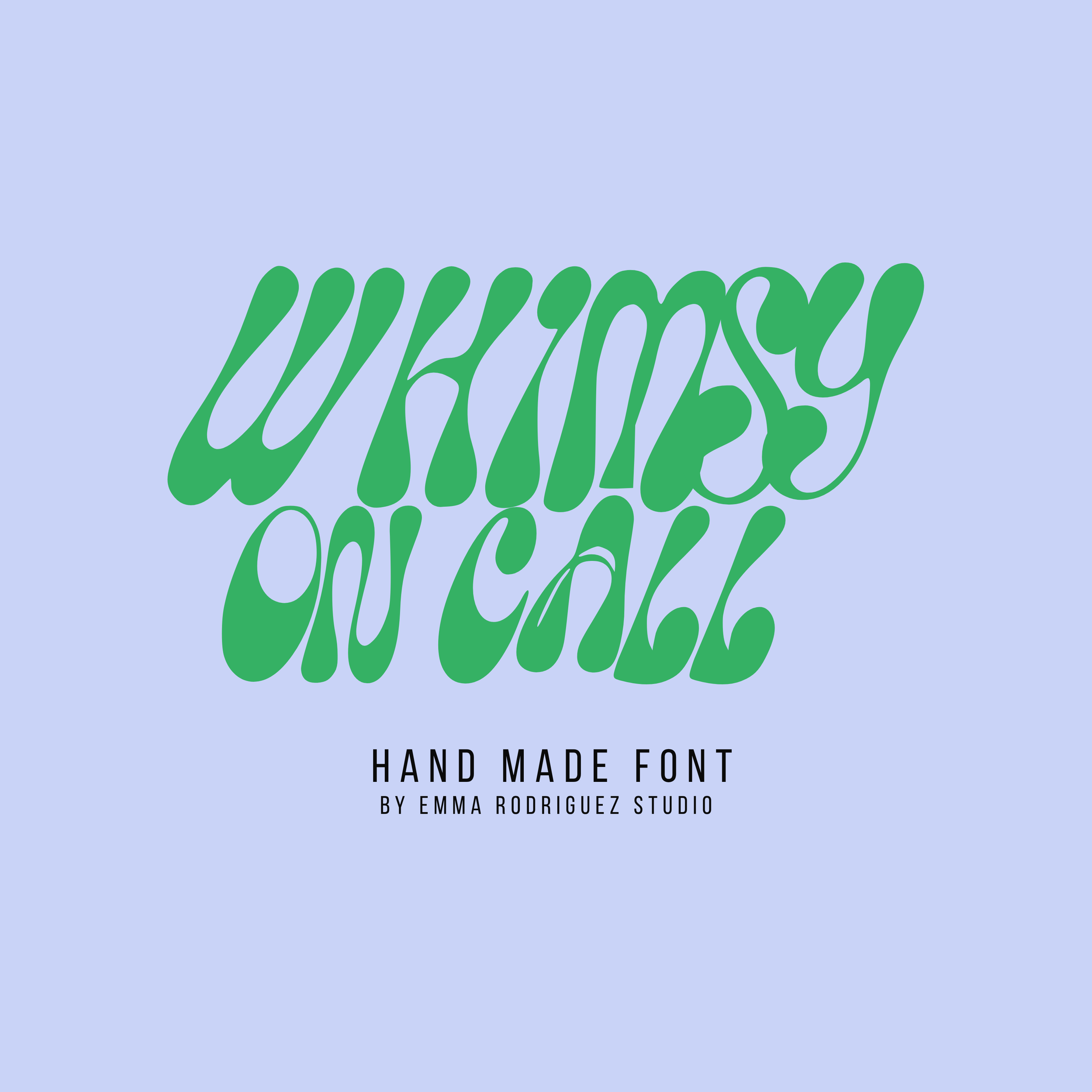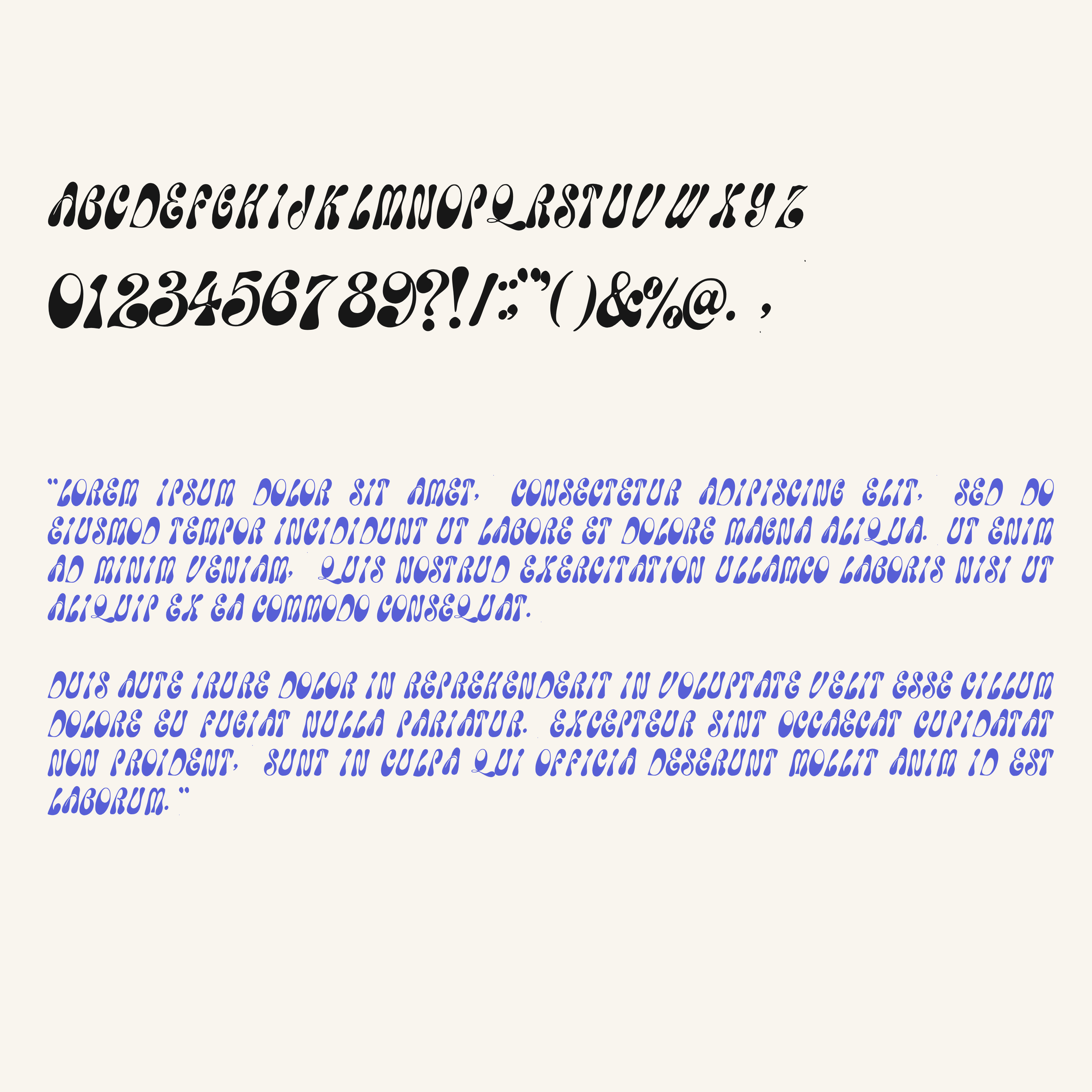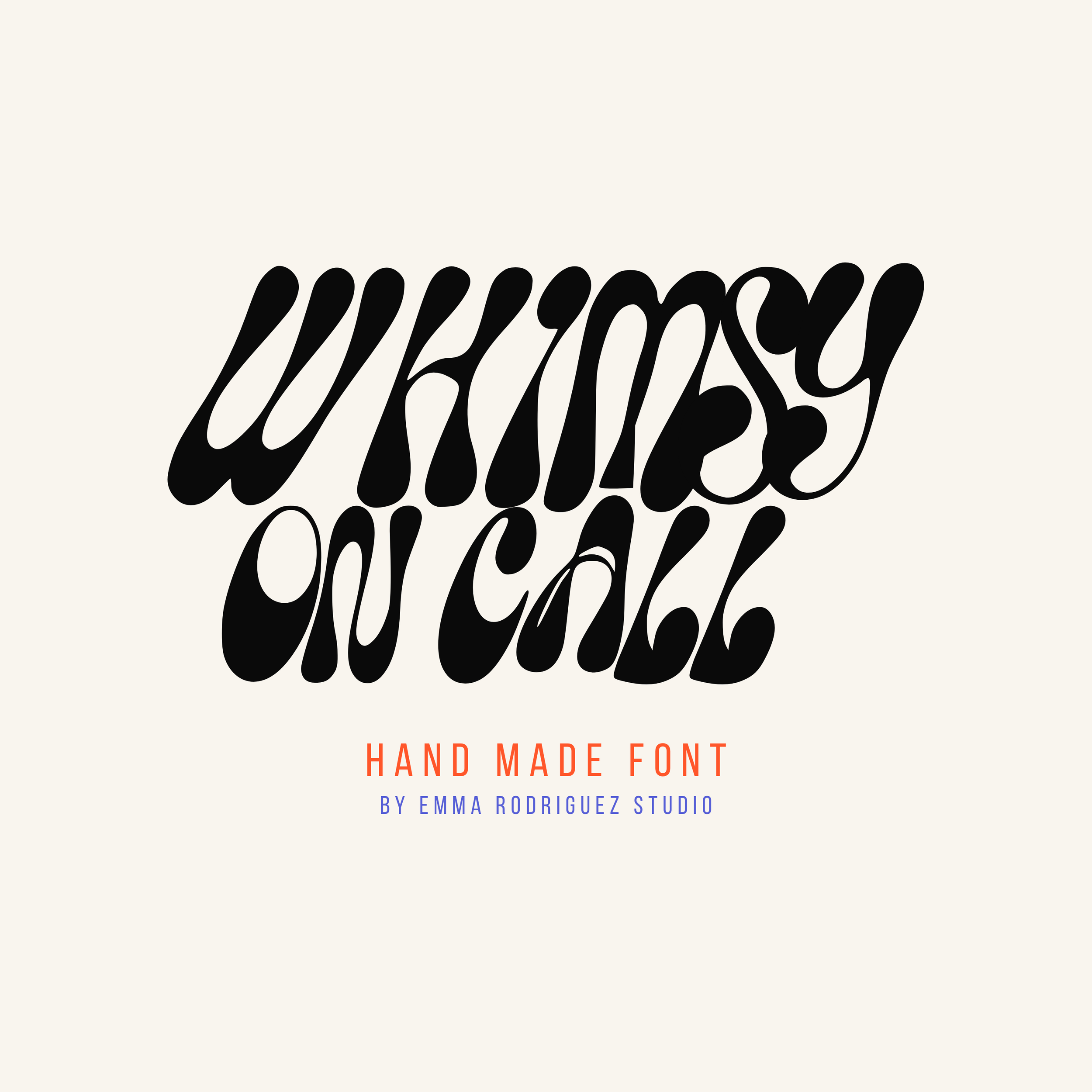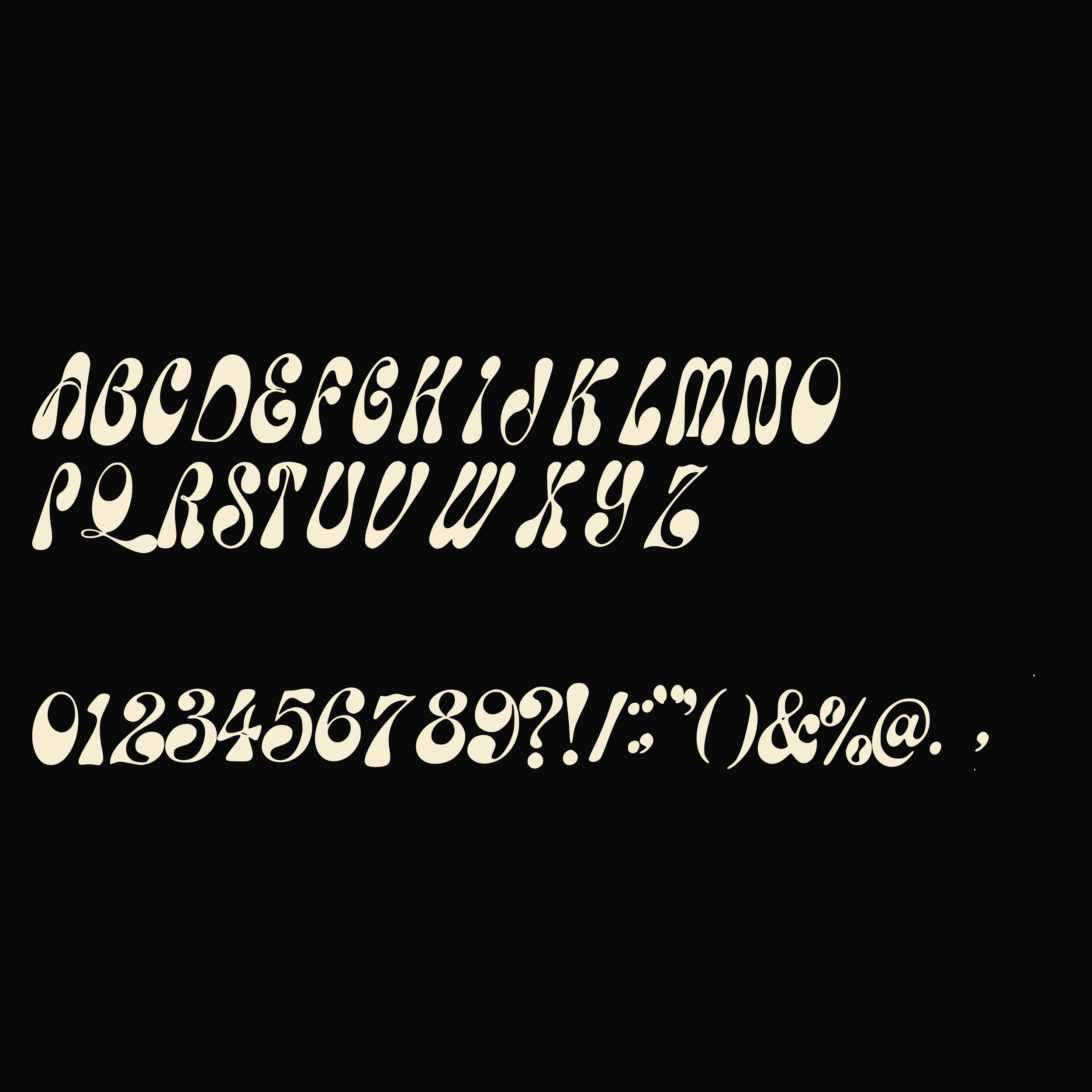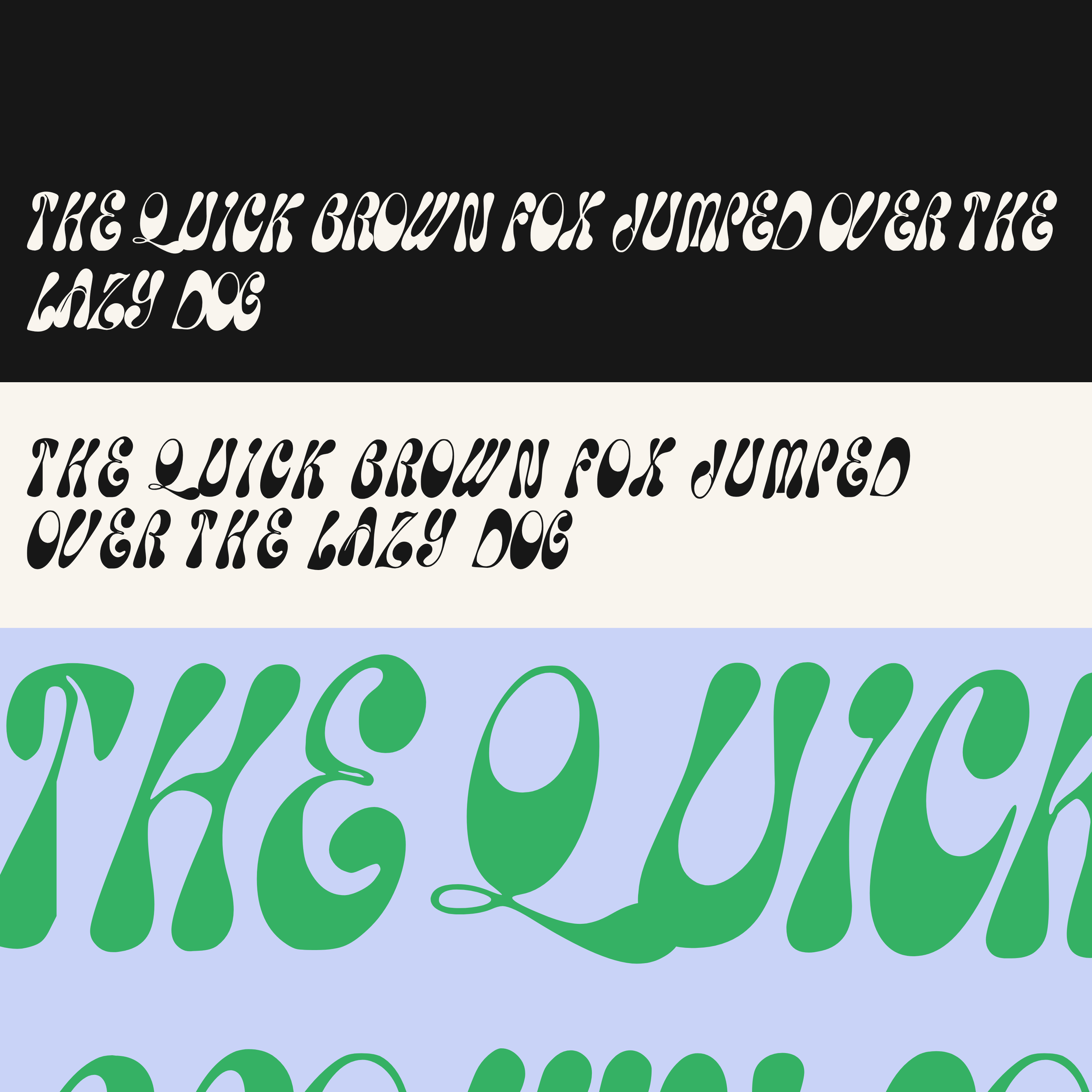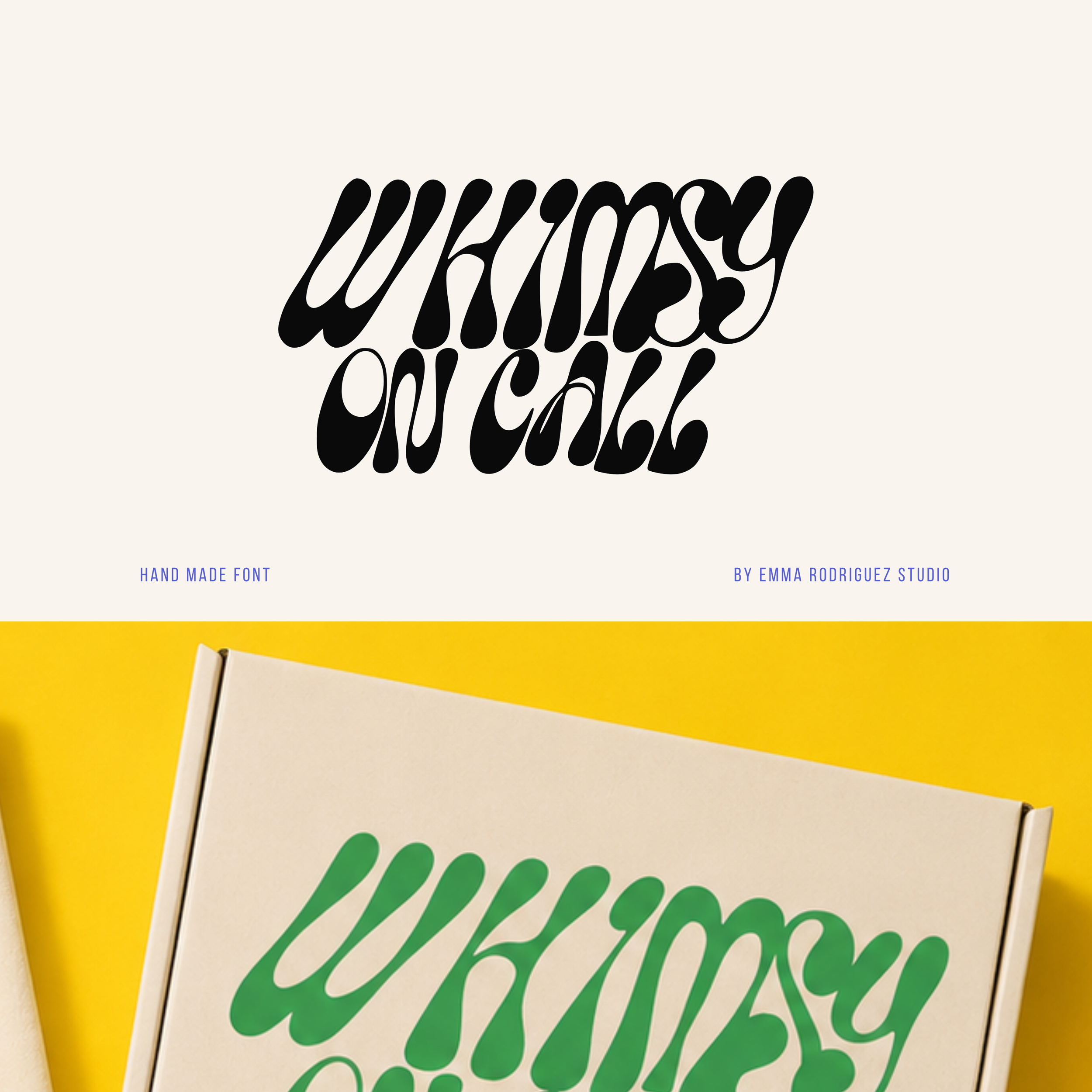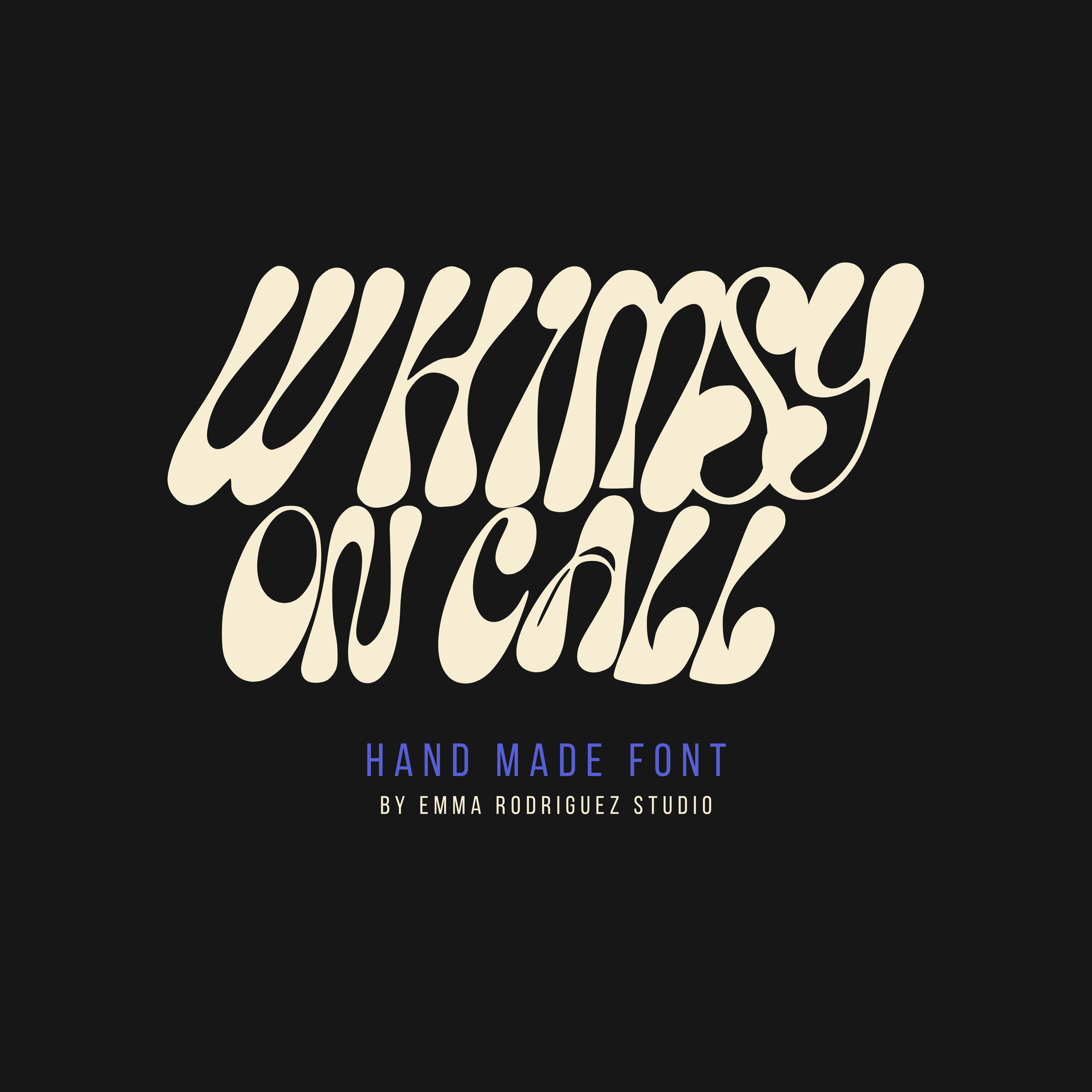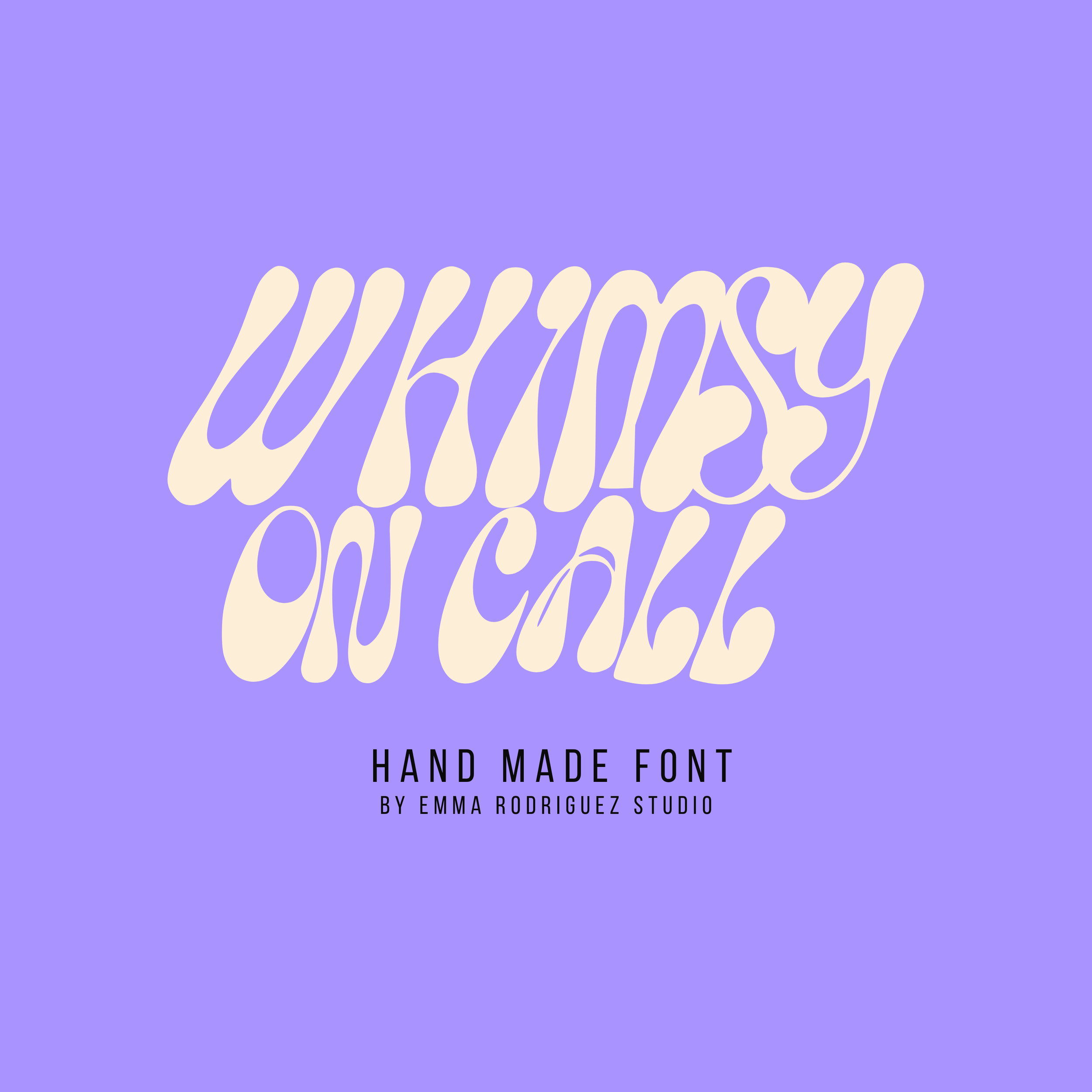
Whimsy On Call - Quirky Curvy Type
Meet Whimsy On Call, a chunky whimsical all caps display font designed for creatives who want typography with actual personality. Built with soft bubbly curves, playful uneven lettering, and exaggerated organic shapes, this font leans fully into quirky, fun typography without losing readability.
The letterforms feel inflated, expressive, slightly chaotic, and intentionally off balance, giving every word movement and personality. It has that bold contemporary look sitting somewhere between retro bubble lettering, playful editorial typography, and modern quirky branding design.
Perfect for designers who are tired of clean corporate fonts and want something more human, more expressive, and way more visually interesting.
Whimsy On Call works especially well for bold poster design, playful branding, statement typography, stickers, packaging, social graphics, music artwork, editorial layouts, and personality driven creative projects. The uneven baseline and shifting proportions are intentional design choices that give the typeface its loose handmade rhythm and whimsical feel.
Perfect for:
• Playful branding
• Quirky poster design
• Editorial typography
• Music artwork
• Sticker designs
• Packaging projects
• Social media graphics
• Zines and magazines
• Creative small businesses
• Apparel graphics
• Fun website headers
• Bold quote graphics
• All uppercase letters
• Numbers and punctuation
The soft bubbly structure and quirky rounded shapes make it especially good for contemporary design trends focused on expressive typography, playful branding, retro inspired layouts, and fun editorial aesthetics.
Please note:
The uneven baseline, shifting alignment, and exaggerated shapes are intentional parts of the design style and not font defects.